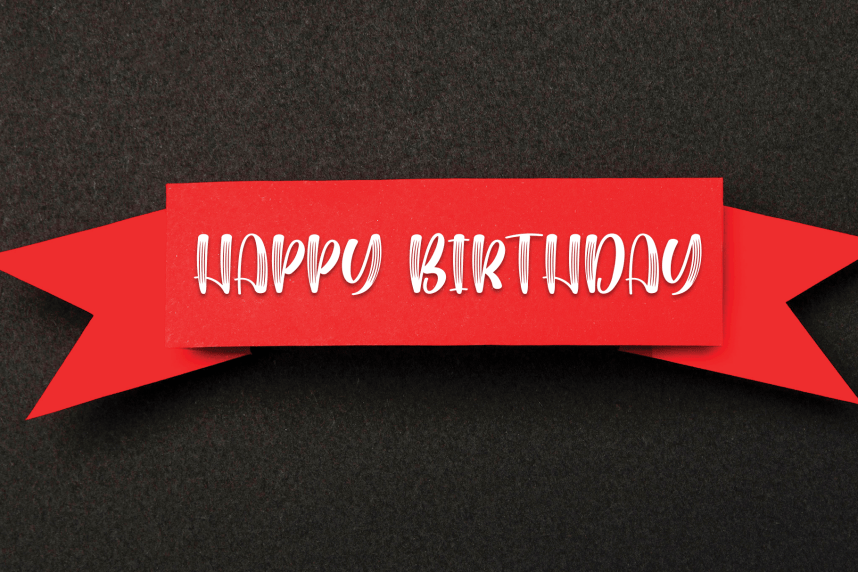
Winter Celebration – Creative And Unique Font
Winter Celebration – Creative And Unique Font, special creative products for you, our products will give you an extraordinary experience. the latest style letters are perfect for wall displays, wedding invitations, social media post logos, advertisements, product packaging, product designs, labels, photography, watermarks, invitations, stationery, and any project that requires taste handwriting.